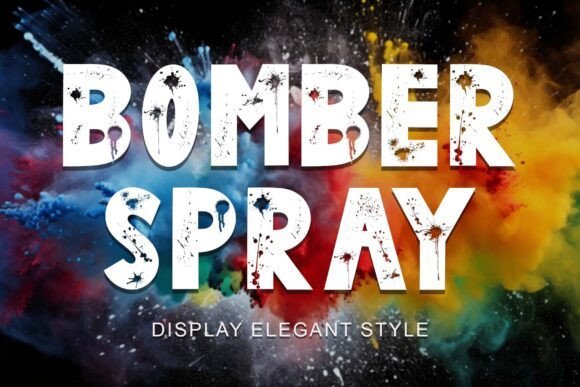
The Perfect Font for Making a Statement
You know that moment when a font just speaks to you, and you know you have to use it in your next project? That’s exactly what happened to me when I stumbled upon the Bomber Spray Font. The moment I saw its bold, graffiti-inspired design, I knew it was the perfect fit for a friend’s streetwear brand. The font’s energy and rebellion are infectious, and I couldn’t wait to see it in action.
The Bomber Spray Font is a game-changer for designers looking to add a bold visual punch to their designs. With its splattered ink textures and graffiti-inspired details, this font is perfect for posters, album covers, streetwear branding, event flyers, and anything that needs to make a statement. Its loud, raw design is not only eye-catching but also adds a layer of creativity and urban edge to any project.
Bomber Spray Font Key Features
- Unique Characteristics: Features a distressed, graffiti-style design with bold lines and vibrant colors, adding a touch of urban edge to any design.
- Character Set: Includes a comprehensive set of characters, including uppercase and lowercase letters, numbers, and punctuation marks.
- Style Options: Available in various styles, including regular, bold, italic, and bold italic, offering flexibility for different design needs.
Bomber Spray Font Review
I recently had the chance to work with the Bomber Spray Font, and I have to say it’s been an interesting experience. Overall, I think it has some great qualities that make it suitable for certain projects.
- Unique style: The Bomber Spray Font has a distinctive, graffiti-inspired look that can be really eye-catching in the right context.
- Wide range of weights: The font comes in a variety of weights, which can be useful for creating visual interest and hierarchy in your designs.
- Good for bold statements: The font’s bold, energetic feel makes it well-suited for headlines and other situations where you want to make a big impact.
- Difficult to read at small sizes: The font’s bold lines and rough texture can make it hard to read when scaled down to very small sizes.
- Not ideal for body text: While the font works well for headlines and other display text, it’s not the best choice for large blocks of body text.
Overall, I think the Bomber Spray Font is a solid choice for designers who want to add a bit of edge and personality to their projects. However, it’s not a one-size-fits-all solution, and you’ll want to carefully consider the context and intended use before choosing this font for your design.
Bomber Spray Font: A Practical Application Guide
For best results, use the Bomber Spray font in bold, eye-catching headings and titles. This font is particularly well-suited for graphic designs, street art, and urban-themed projects.